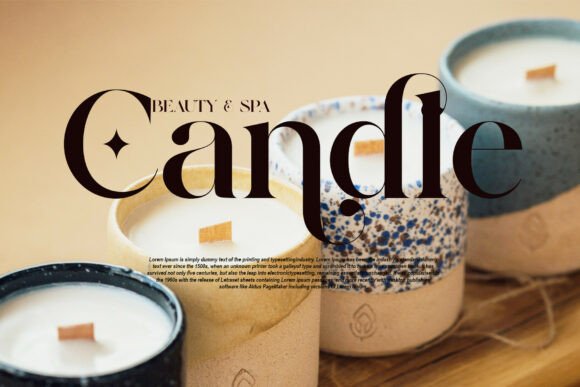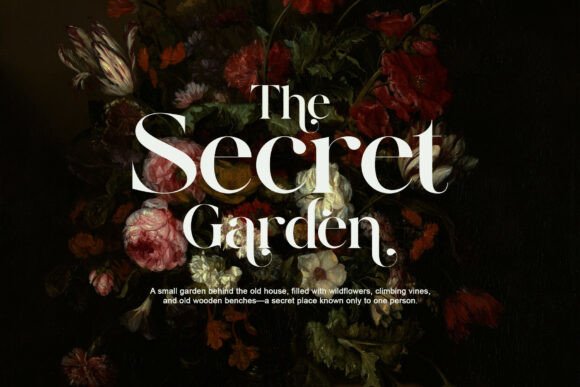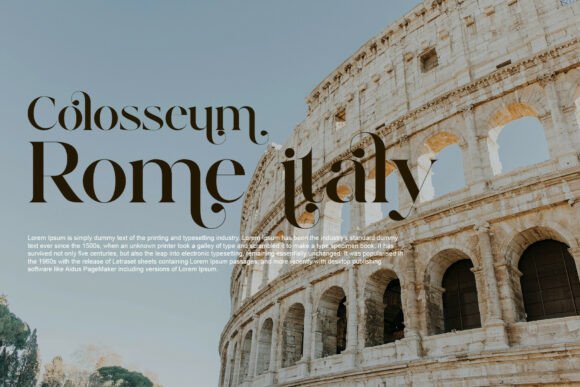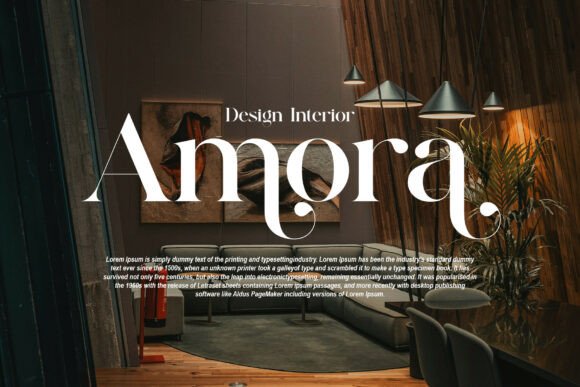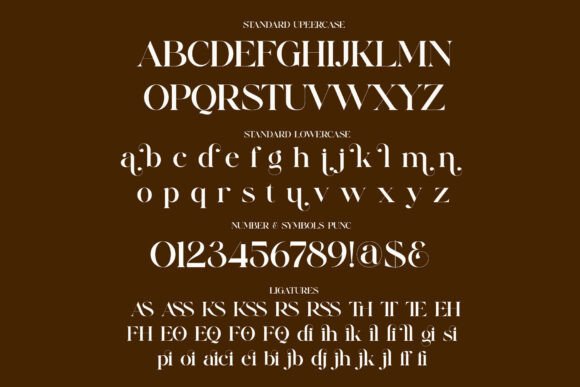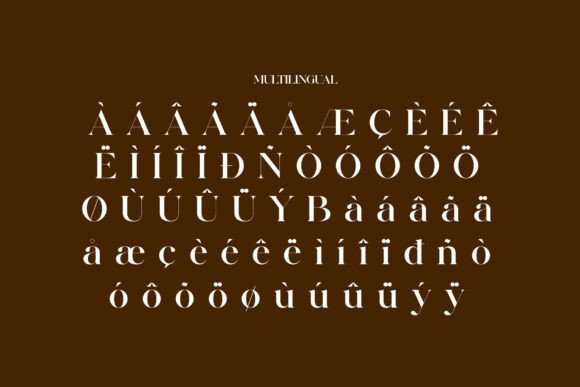
Introducing Belinda Font: Elevate Your Luxury Projects with Elegance and Sophistication
In the world of typography, a well-crafted font can make all the difference in elevating a design project from ordinary to extraordinary. For luxury projects that demand high-end aesthetics, Belinda Font is an exceptional choice. This modern, elegant serif font is designed to captivate audiences with its unique blend of high contrast and refined curves, making it perfect for fashion editorials, beauty branding, wedding stationery, and opulent logo designs.
The Distinctive Features of Belinda Font
Belinda Font’s signature feature is its exquisite swash alternates and oversized terminal drops on key characters. These distinctive elements give the lowercase glyphs an undeniable, dramatic flair that sets Belinda apart from other serif fonts. The high contrast between thick and thin lines creates a sense of elegance and sophistication, while the refined curves add a touch of refinement and luxury.
Designed for High-Impact Display Use
Belinda Font is specifically designed for high-impact display use, making it perfect for projects that require a bold and eye-catching typography. Whether you’re working on a fashion editorial, beauty branding campaign, or wedding stationery, Belinda Font is sure to make a statement. Its sophisticated design and wealth of stylistic options offer designers a powerful tool to create truly captivating typography.
A Perfect Balance of Classical Influence and Contemporary Execution
Belinda Font strikes a perfect balance between classical influence and contemporary execution. The font’s serif design pays homage to traditional typography, while its modern twist and elegant curves bring it firmly into the 21st century. This balance makes Belinda Font an excellent choice for designers who want to create luxury projects that are both timeless and modern.
Endless Stylistic Options for Designers
One of the standout features of Belinda Font is its wealth of stylistic options. The font offers a range of swash alternates, oversized terminal drops, and refined curves that allow designers to experiment with different looks and styles. Whether you’re working on a bold and dramatic design or a more subtle and elegant one, Belinda Font provides the flexibility to achieve your desired outcome.
Applications for Belinda Font
Belinda Font is an incredibly versatile typeface that can be used in a variety of luxury projects, including:
- Fashion editorials: Add a touch of elegance and sophistication to your fashion editorials with Belinda Font.
- Beauty branding: Create a luxurious and high-end brand identity with Belinda Font.
- Wedding stationery: Make your wedding stationery truly special with the elegant and refined curves of Belinda Font.
- Opulent logo designs: Create a bold and eye-catching logo design with Belinda Font’s distinctive swash alternates and oversized terminal drops.
| Font Name | Belinda Font |
| Author | Alfinart |
In conclusion, Belinda Font is an exceptional choice for designers and crafters looking to elevate their luxury projects with elegance and sophistication. Its unique blend of high contrast and refined curves, combined with its exquisite swash alternates and oversized terminal drops, make it a truly captivating typography tool. With its wealth of stylistic options and versatility, Belinda Font is sure to become a go-to typeface for luxury projects that demand high-end aesthetics.